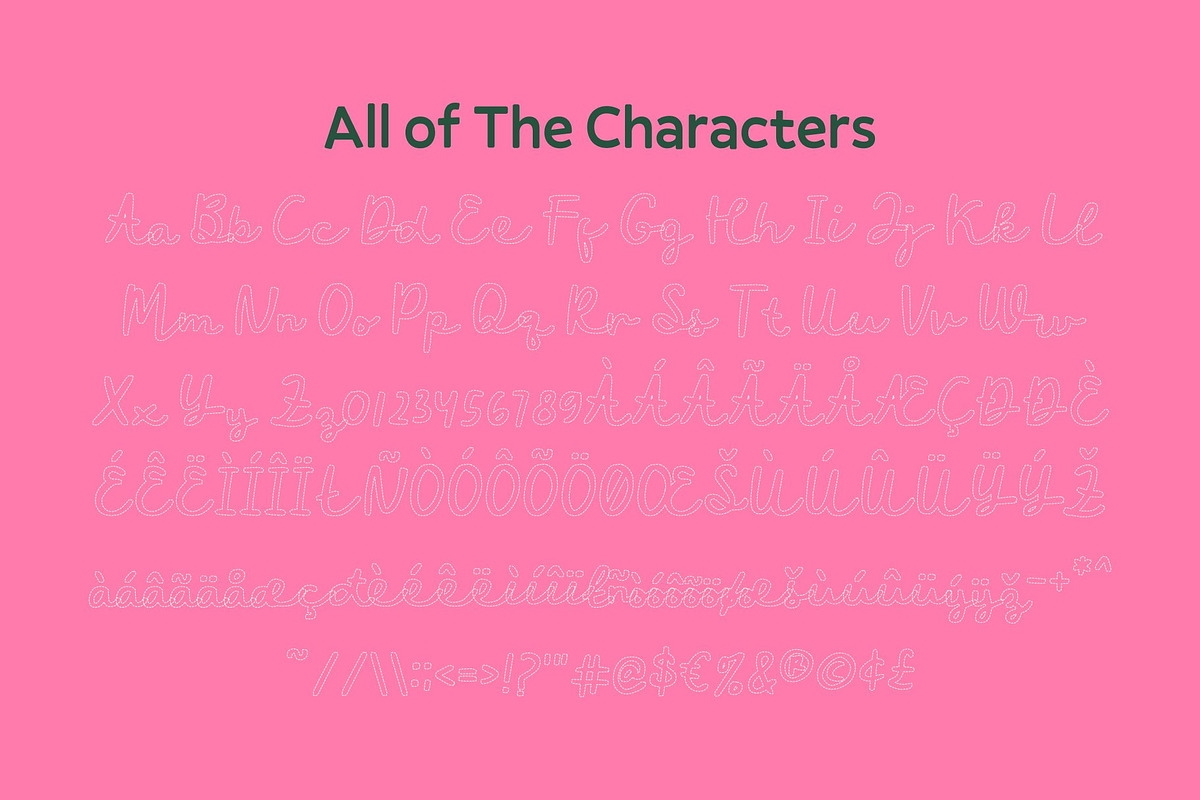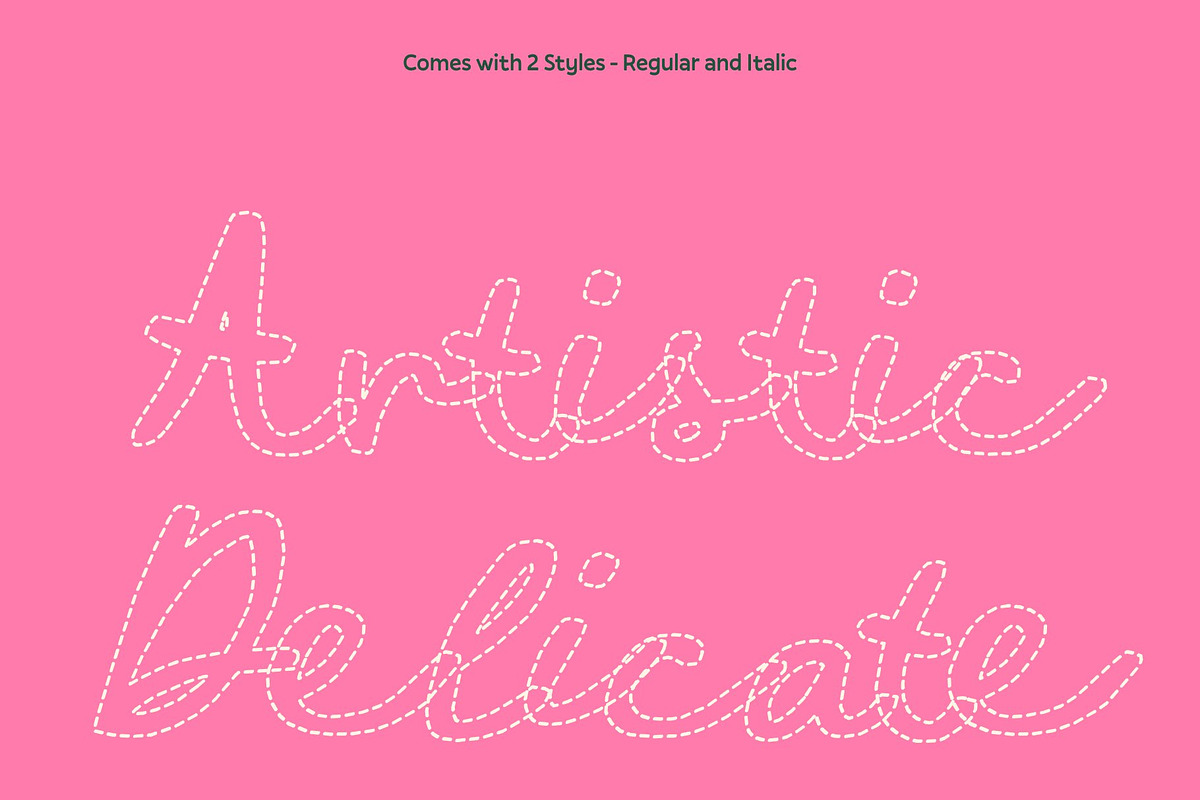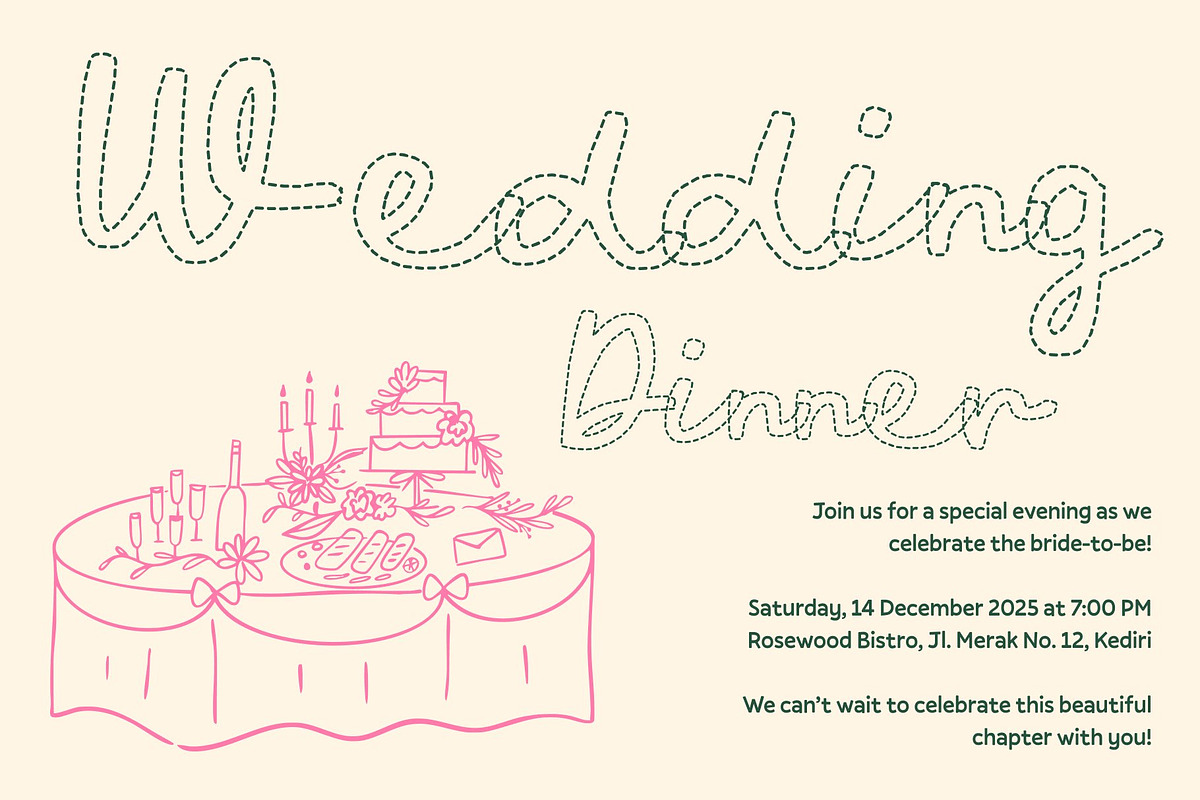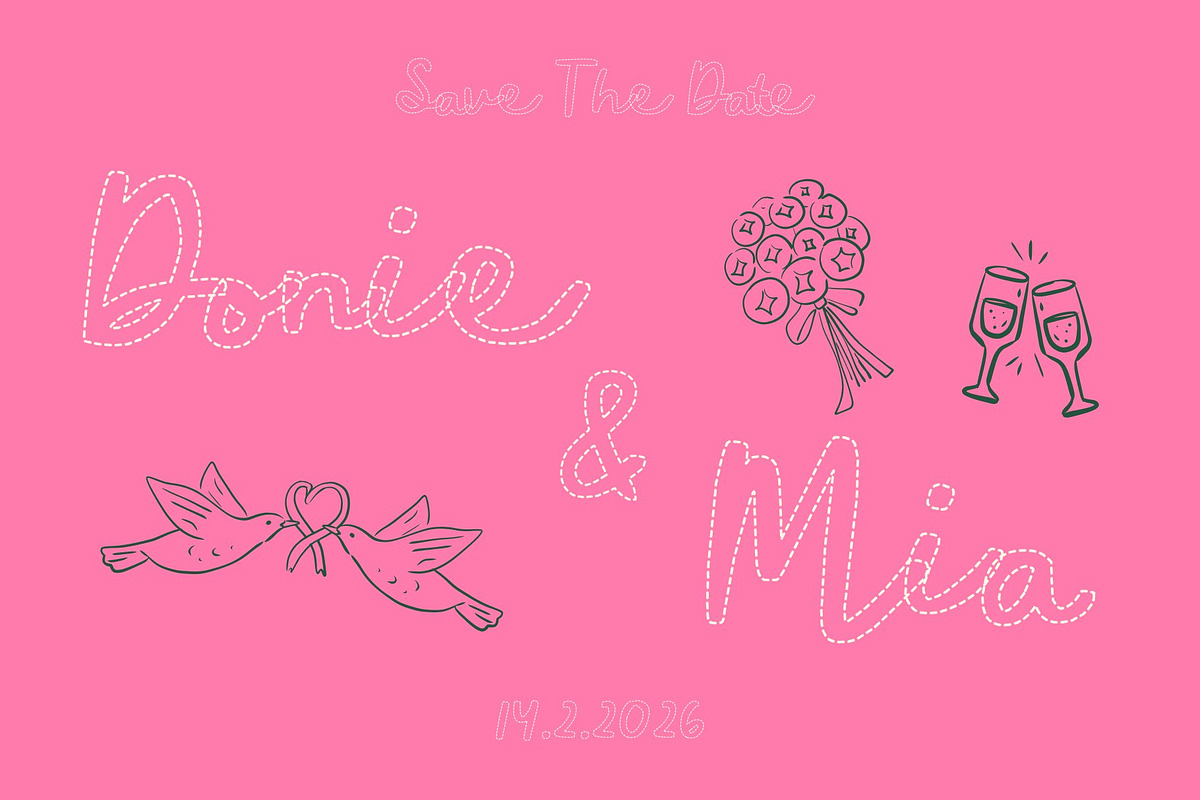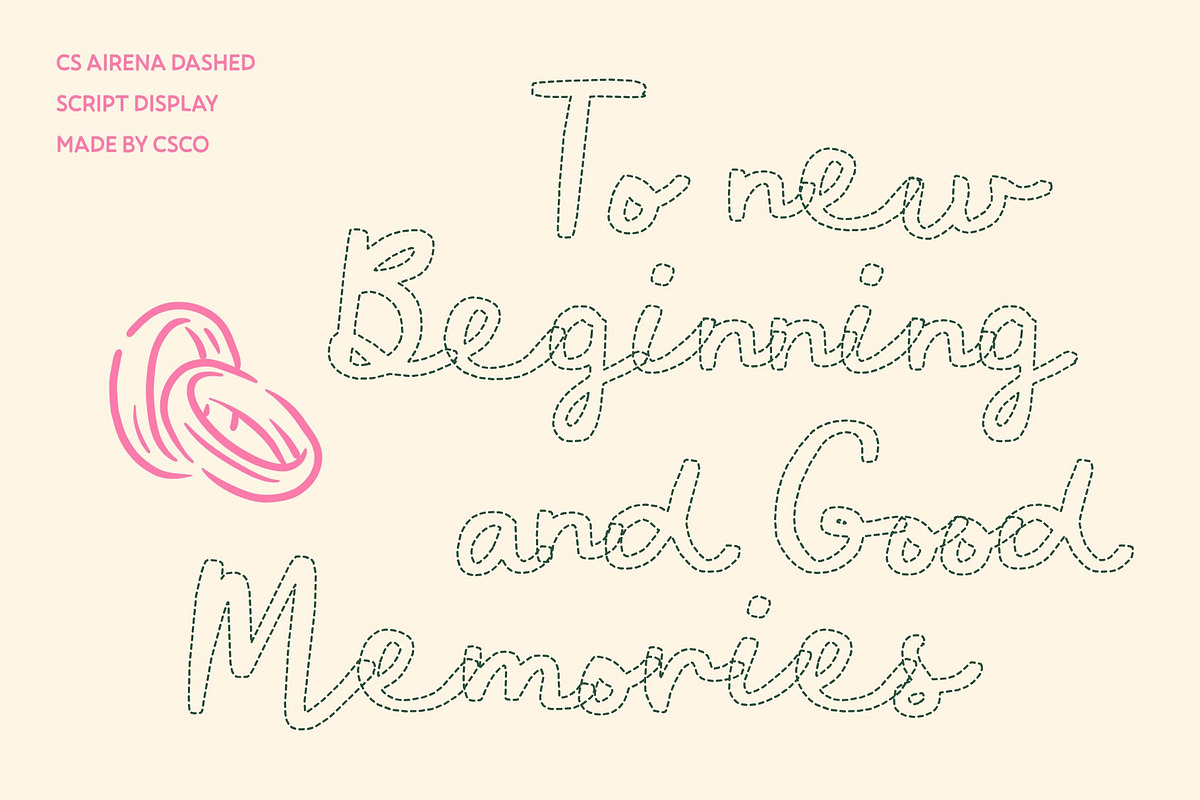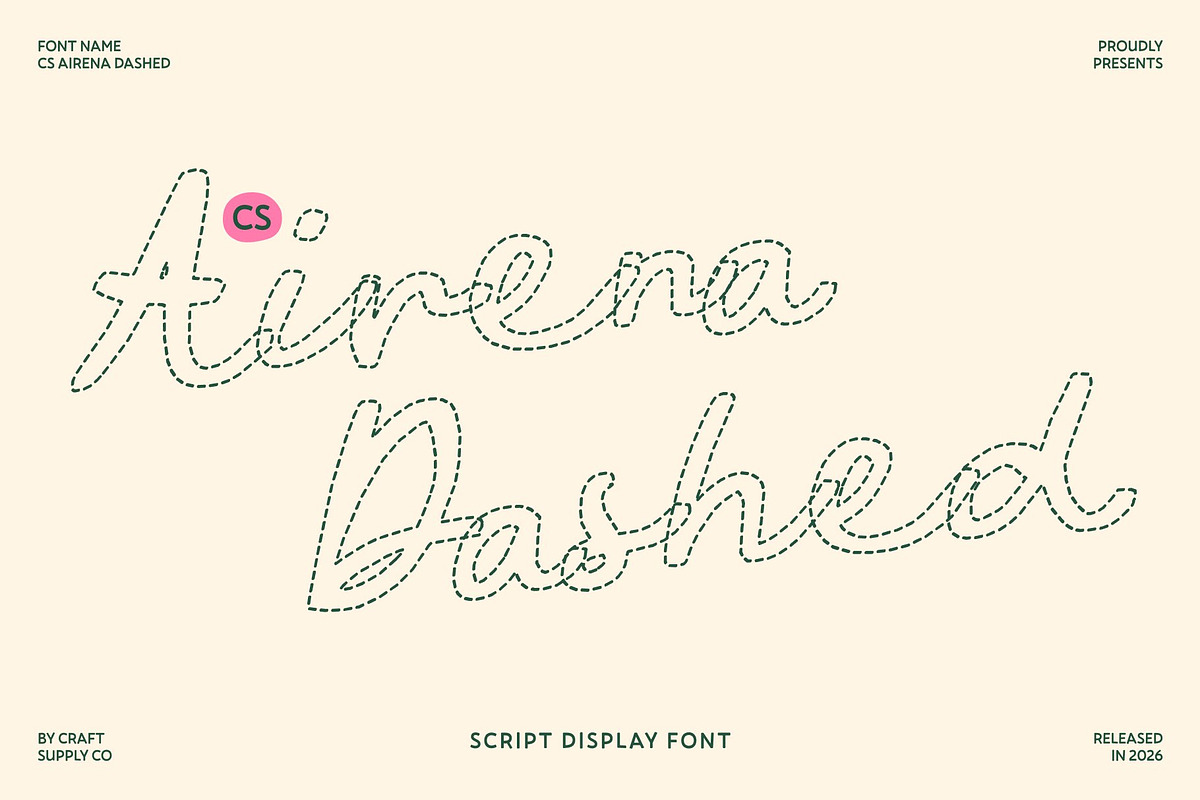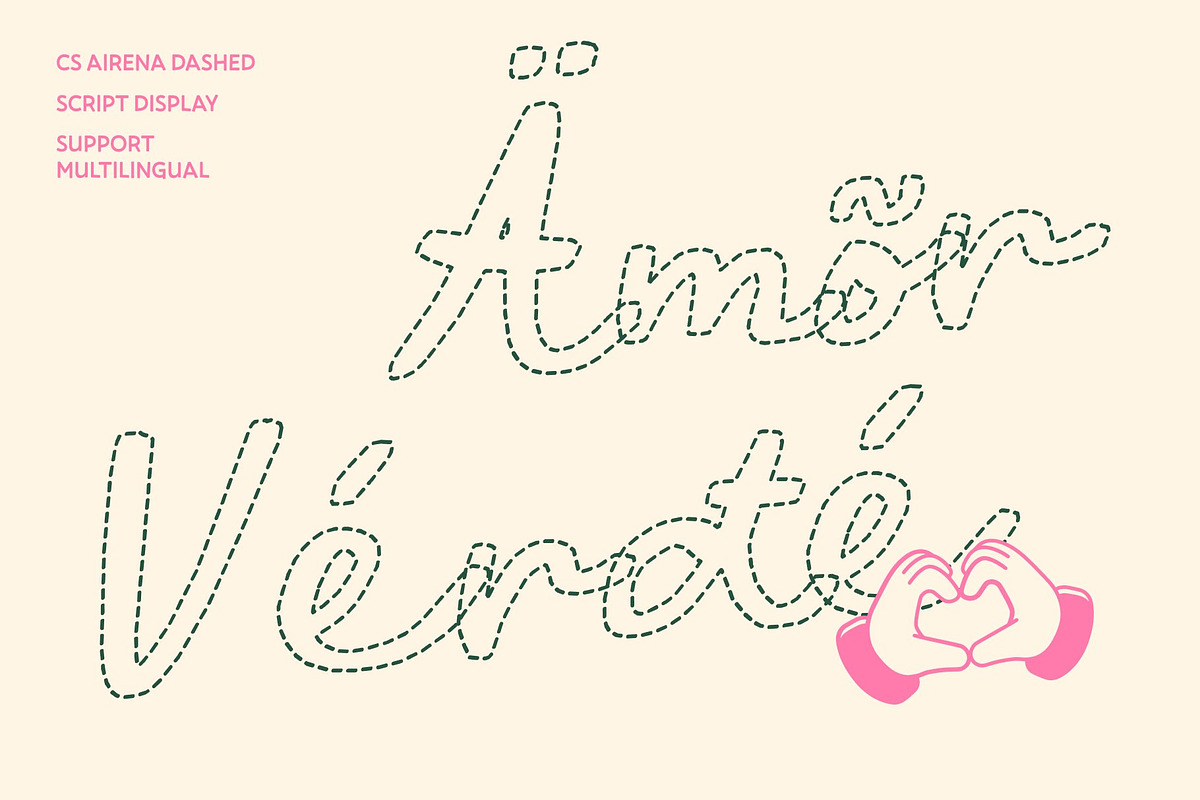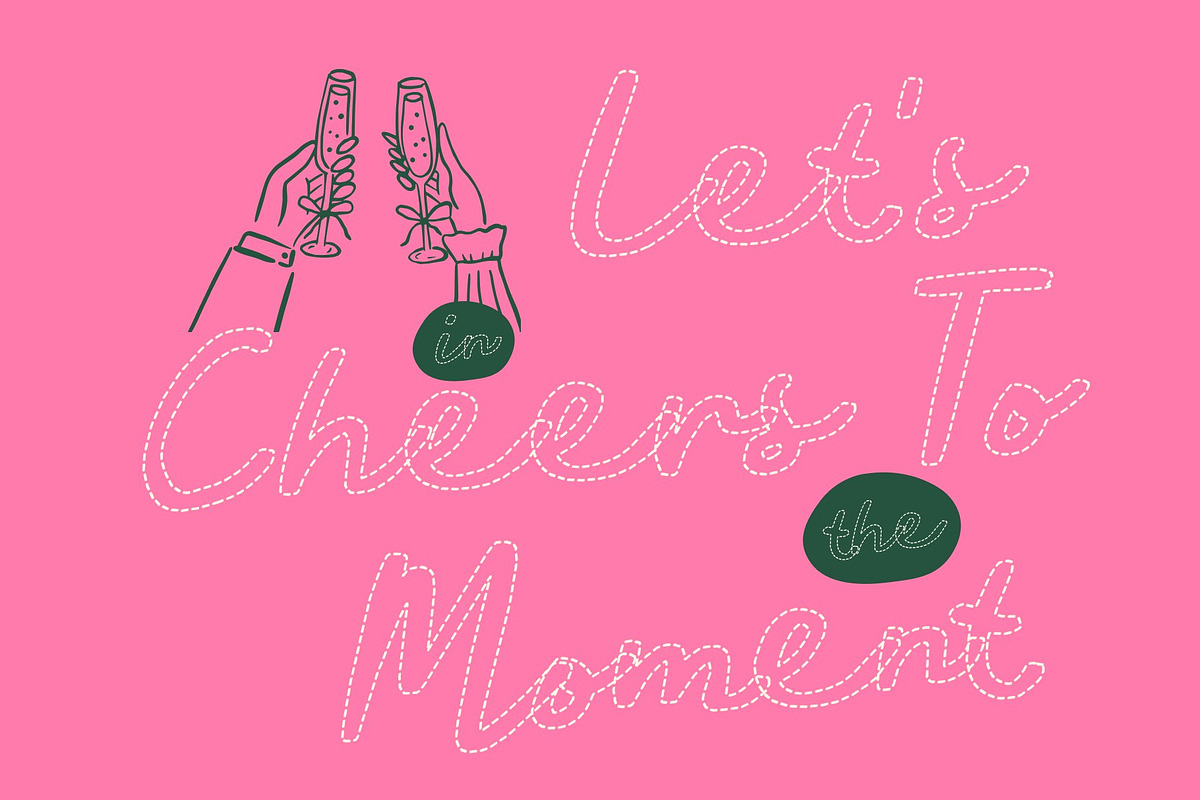
CS Airena Dashed
CS Airena Dashed – Romantic Script Font with Mediterranean Elegance
Graceful Strokes with Airy Dashed Beauty This is a romantic script font that captures the gentle flow and charm of Mediterranean-inspired handwriting. Its smooth, sweeping curves are enhanced by a distinctive dashed construction, where each stroke is formed from delicate broken segments instead of solid lines. This creates a light, airy texture that adds elegance while maintaining a natural, handwritten feel.
Mediterranean Flair with Artistic Movement Infused with coastal warmth and sunlit romance, this font carries a soft Mediterranean character that feels both refined and expressive. The segmented strokes mimic the natural lift of a pen, introducing subtle movement and rhythm. Its flowing forms and graceful loops evoke serenity and sophistication, giving the font a unique artistic presence.
Perfect for Branding and Luxury Packaging Ideal for upscale branding, fashion labels, beauty products, and artisan packaging, delivers a sense of exclusivity and style. The dashed detailing adds a modern creative edge, while the elegant script structure ensures a polished and professional appearance.
Ideal for Wedding Invitations and Elegant Designs With its romantic charm and fluid letterforms, this is perfect for wedding invitations, event stationery, greeting cards, and decorative layouts. Its airy dashed strokes bring softness and intimacy to every design transforming typography into a graceful and memorable visual experience.
CS Airena Dashed Regular
CS Airena Dashed Italic